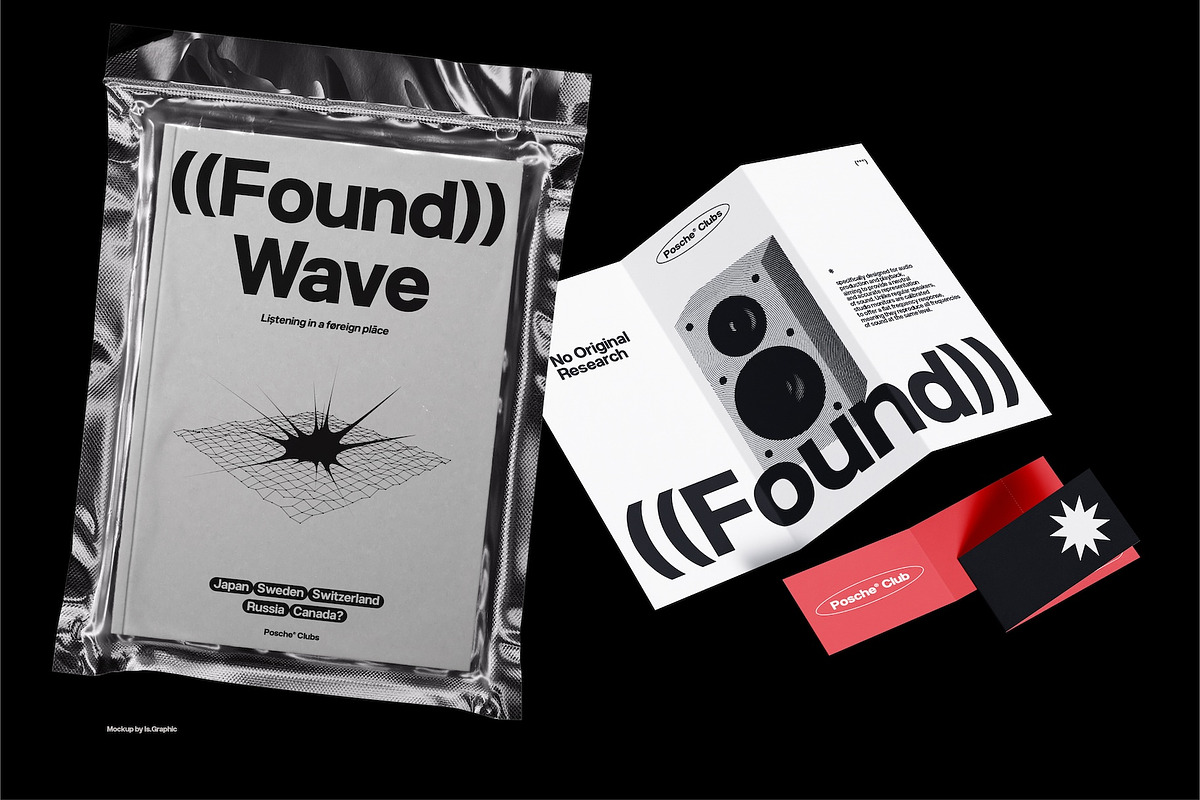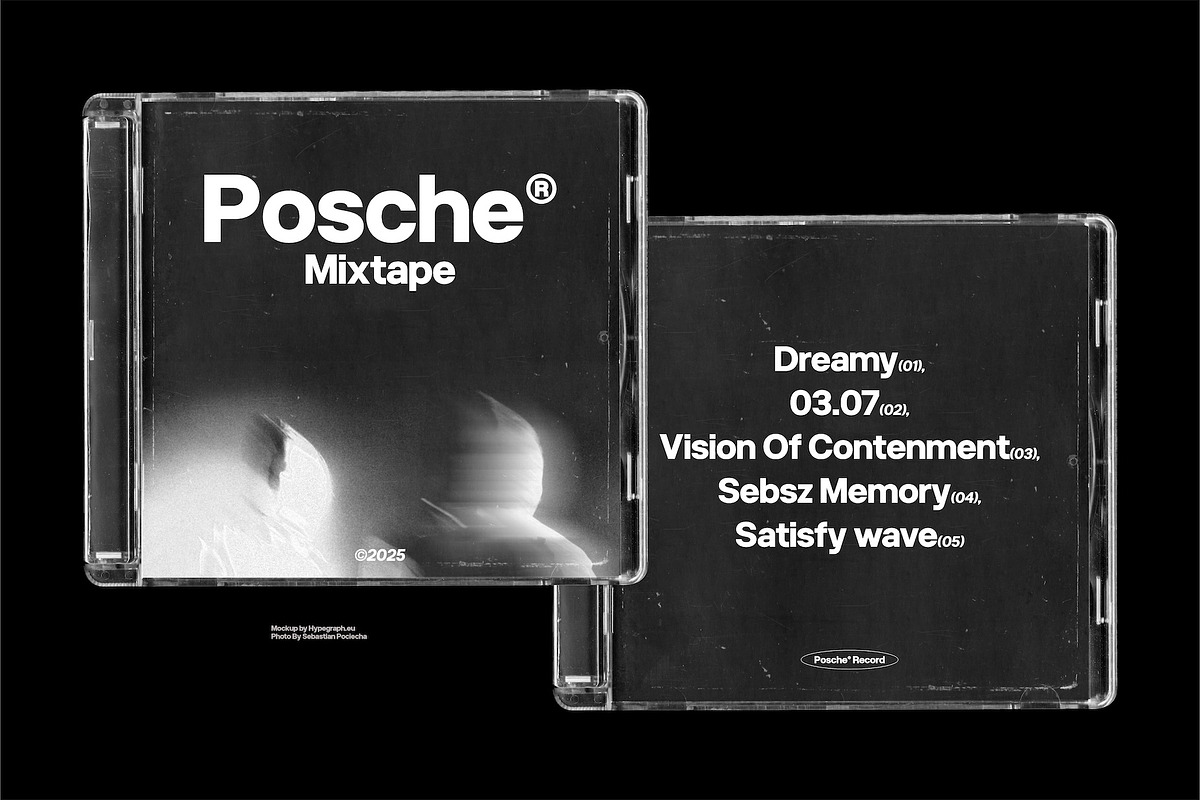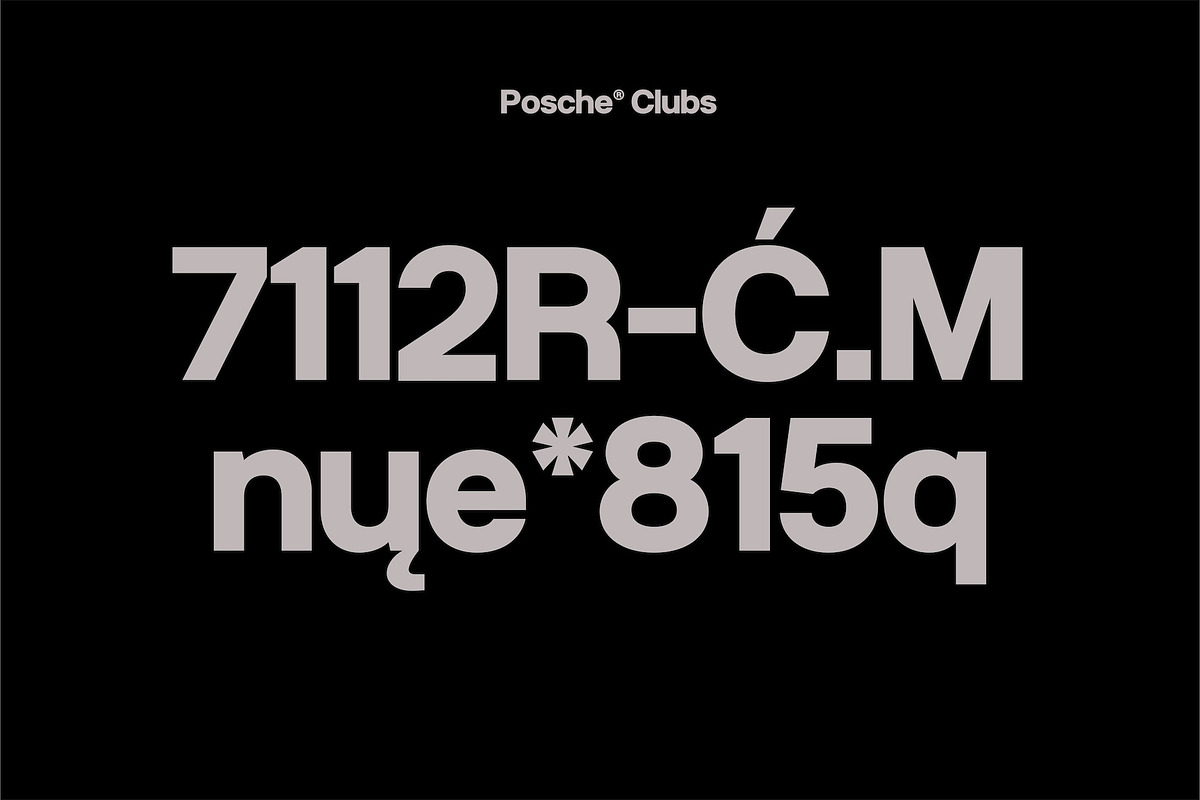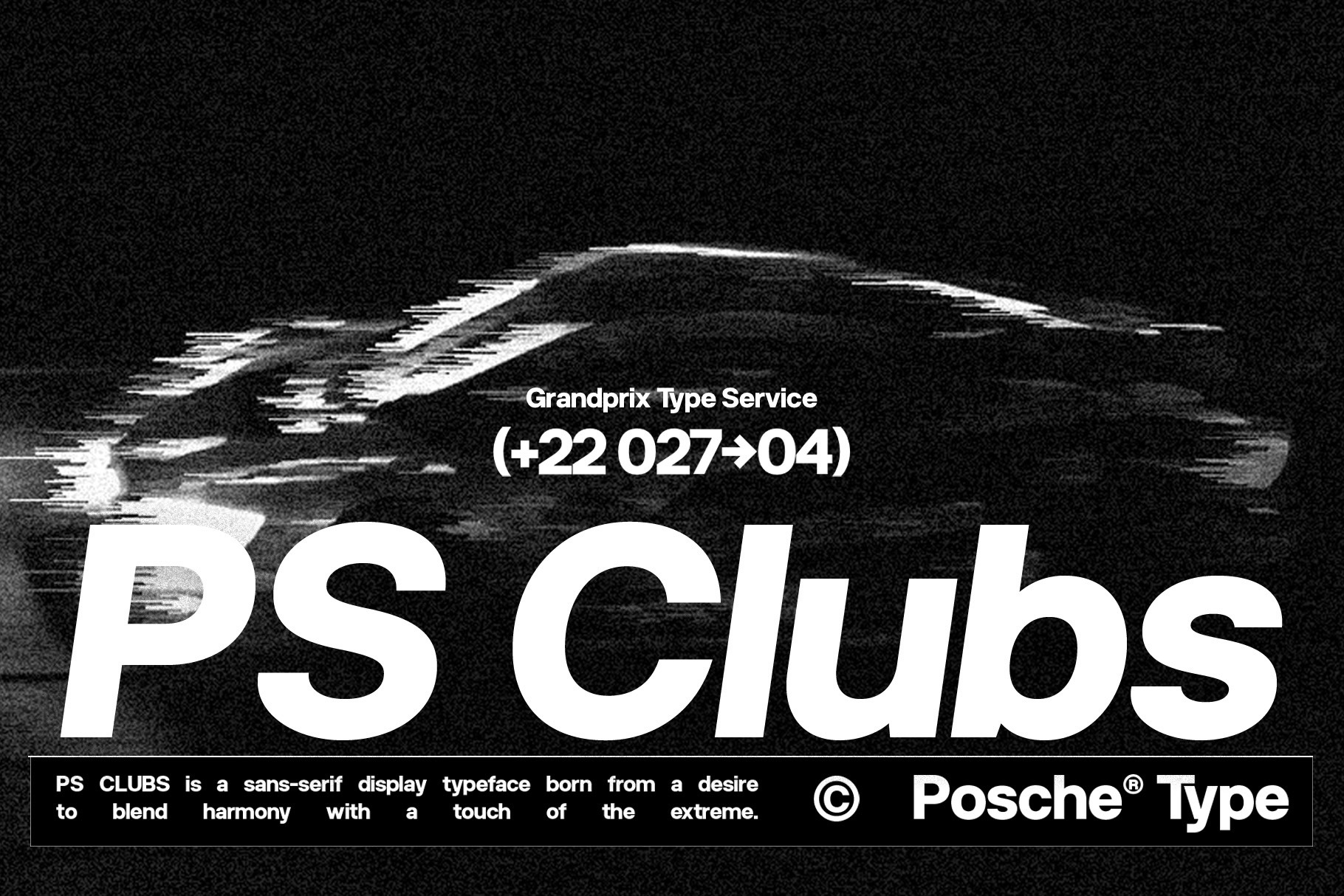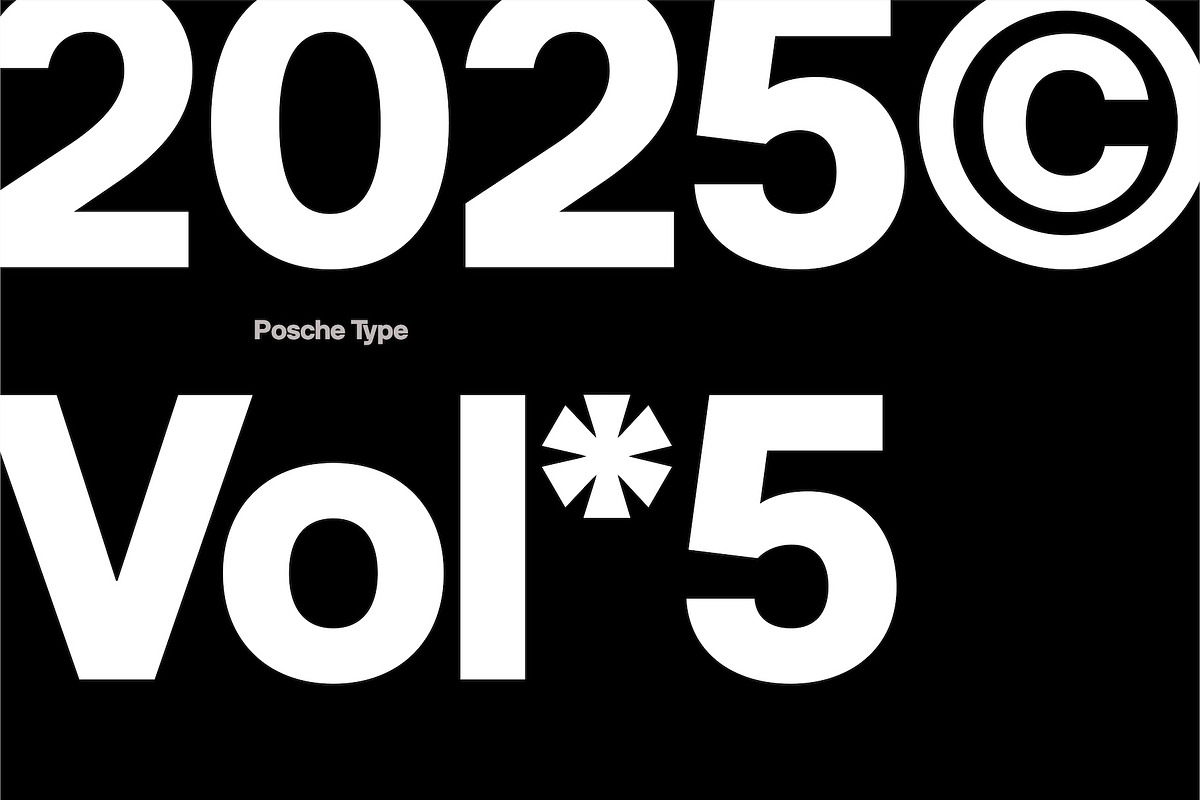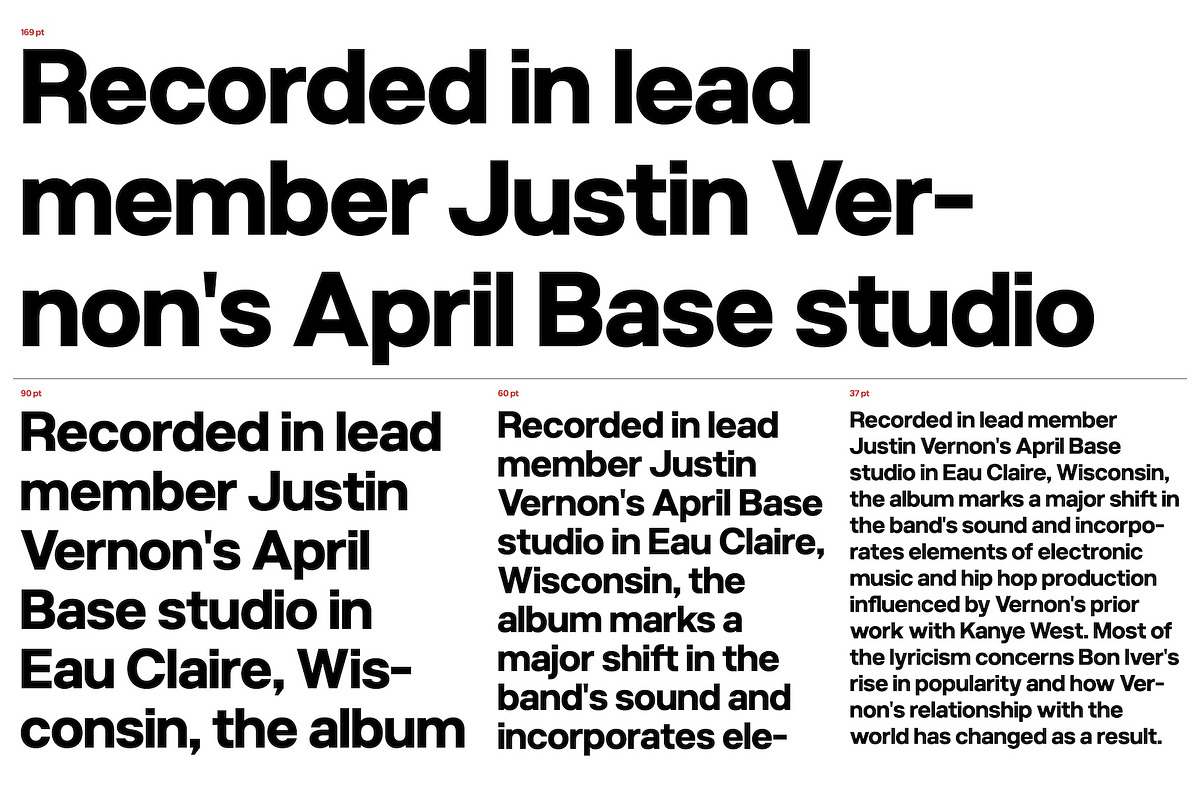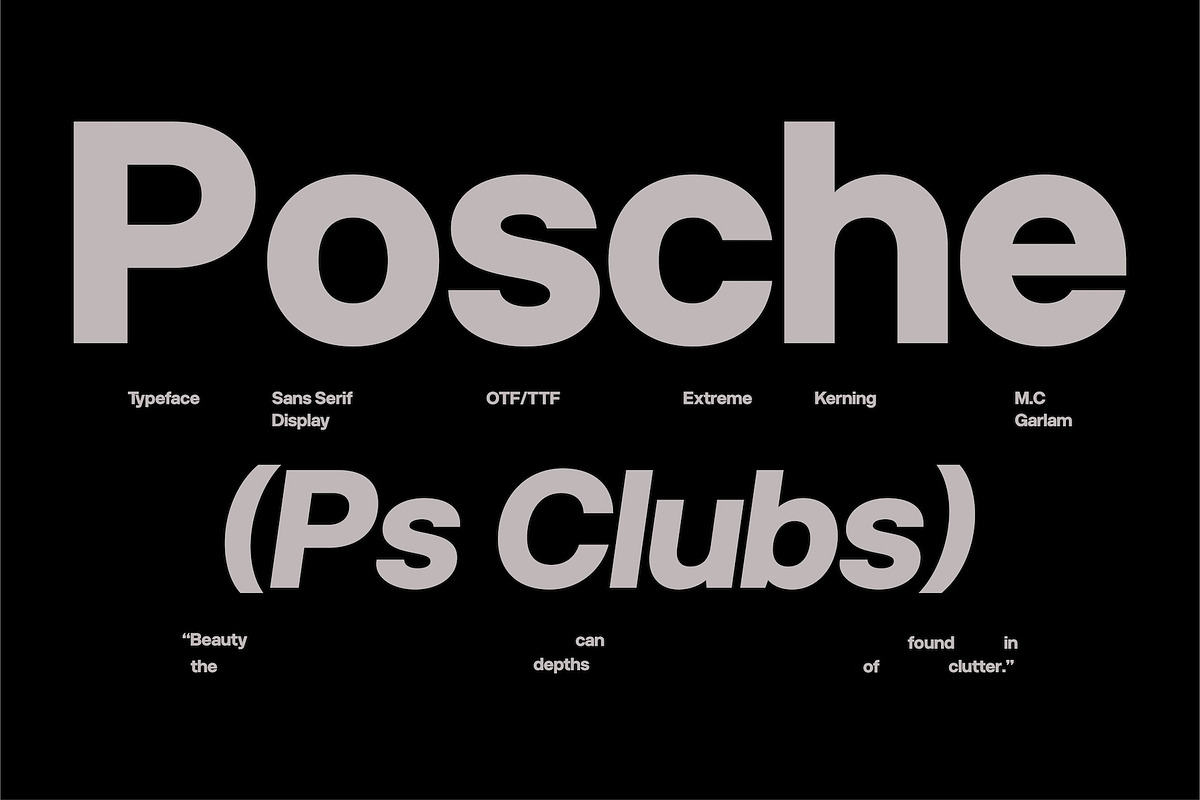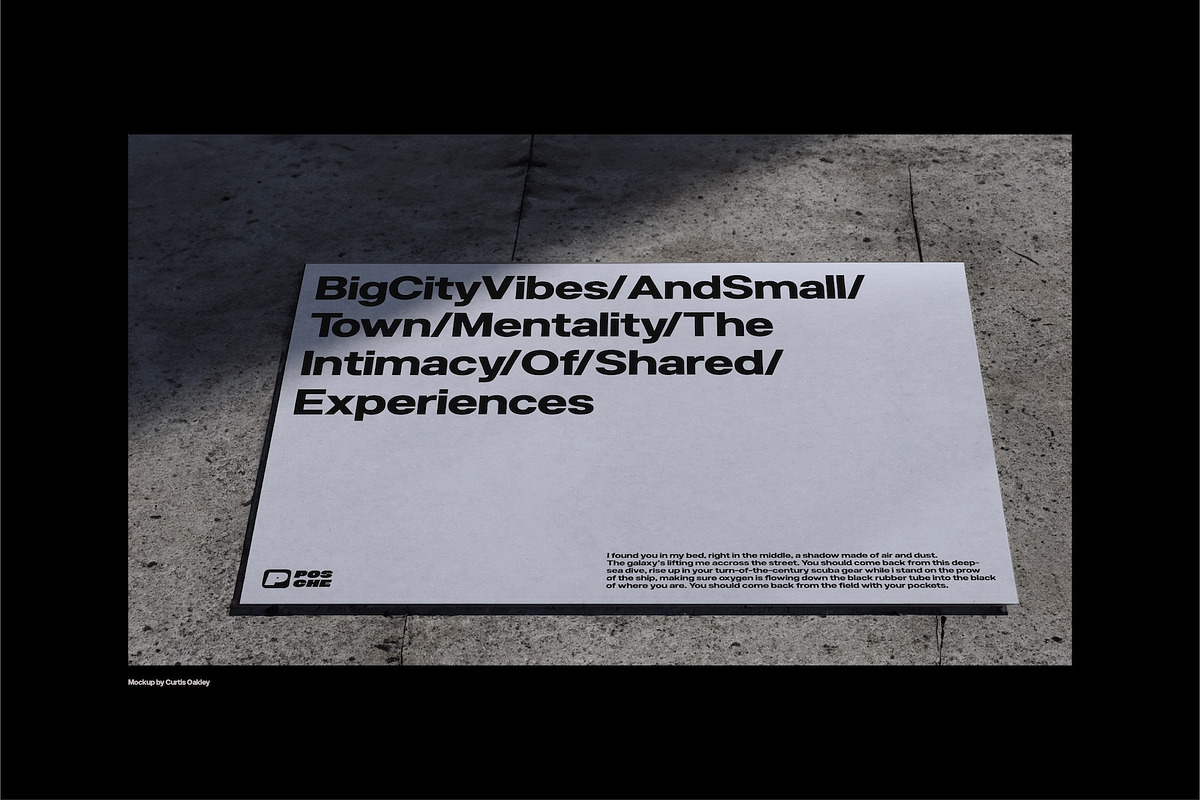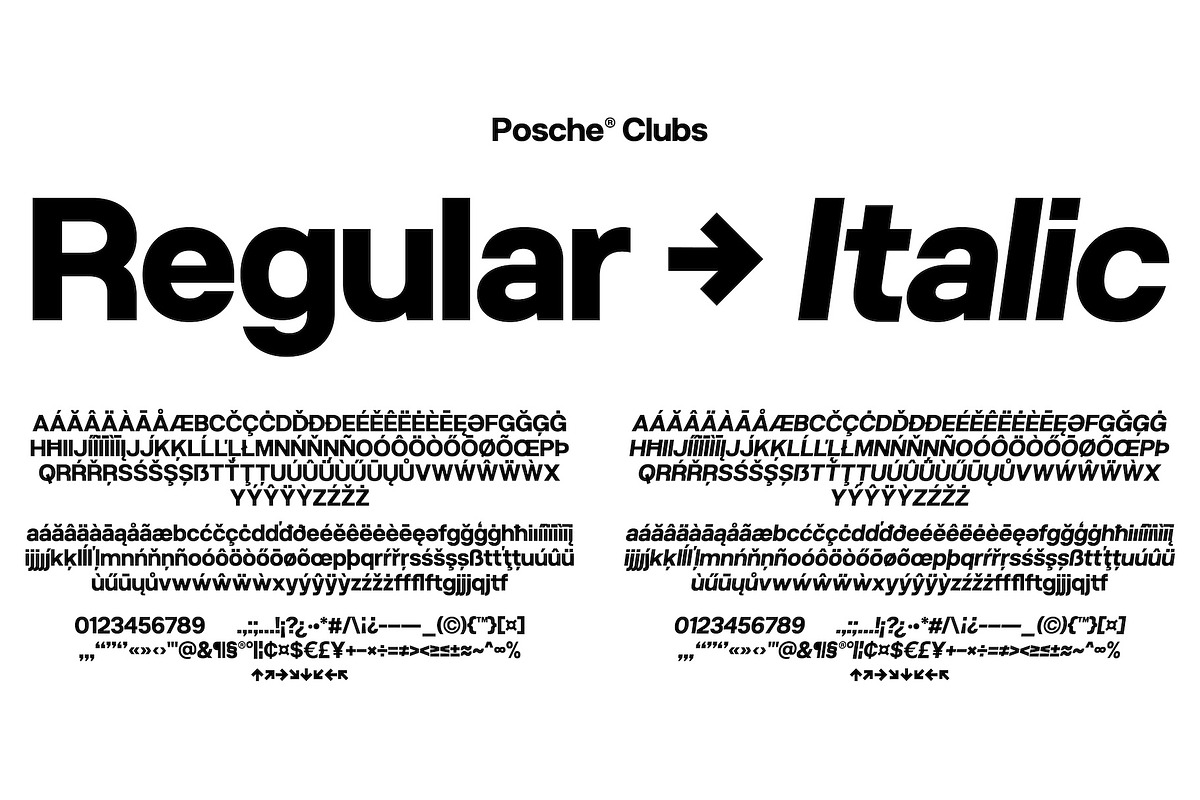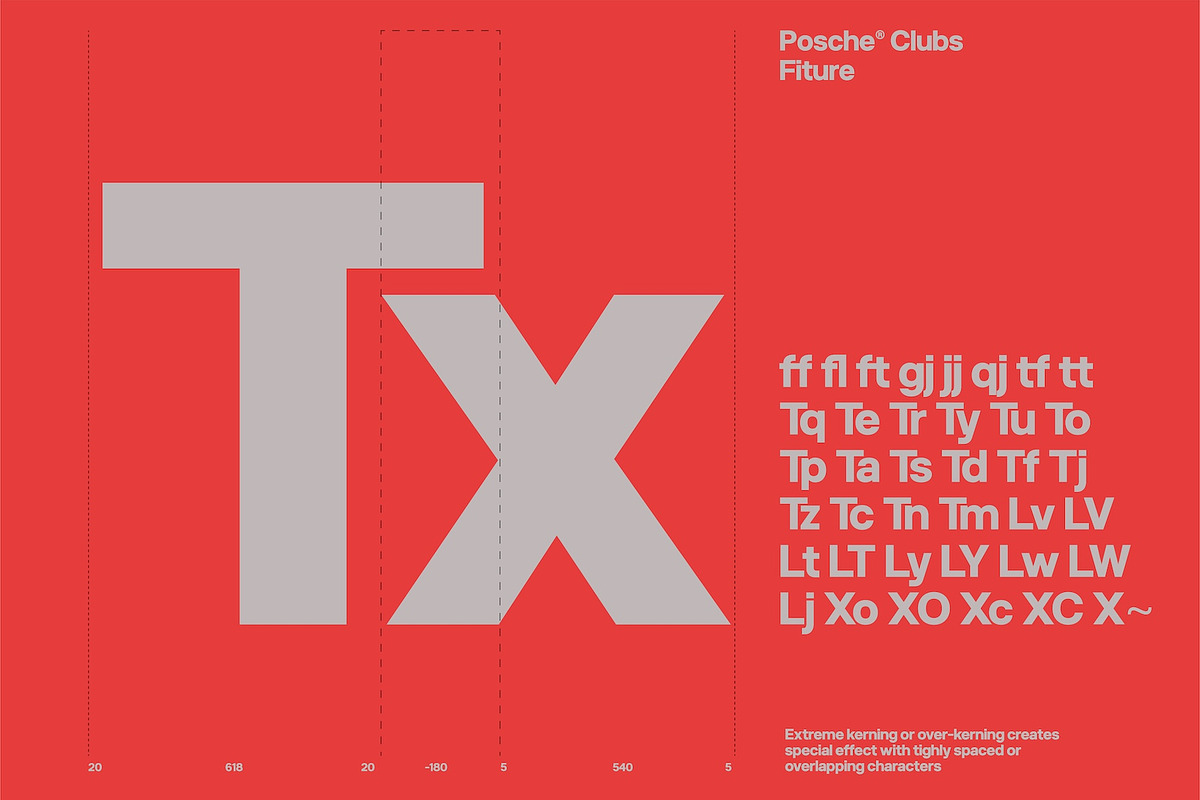
PS CLUB | Display Typeface
PS Clubs is a sans-serif display typeface born from a desire to blend harmony with a touch of the extreme. The result is PS Clubs, featuring Regular and Italic Low Contrast style, each imbued with an edgy kerning that adds a unique flair. This distinctive characteristic elevates your designs, making them stand out.
Perfect for posters, flyers, covers, social media content, and all aspects of branding, PS Clubs is incredibly versatile. Its clear readability also makes it an excellent choice for body text. The extreme kerning, while adding a touch of the unconventional, ultimately becomes a valuable asset in your design.